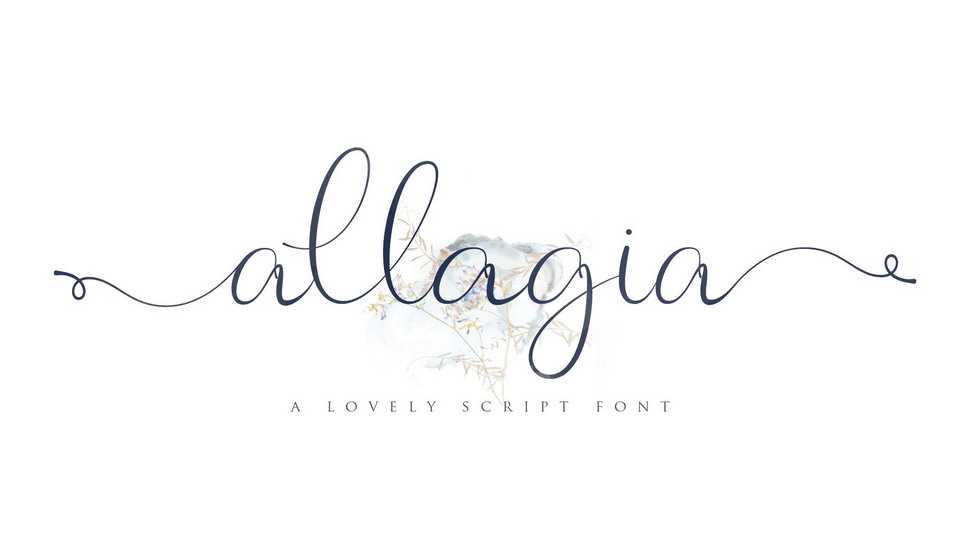
Download Allagia font a beautiful script with natural handwriting style with lowely lowercase alternates, ligatures and multilingual characters. Perfect for many different project such as logos & branding, wedding designs, etc.
Designer: Sabrcreative